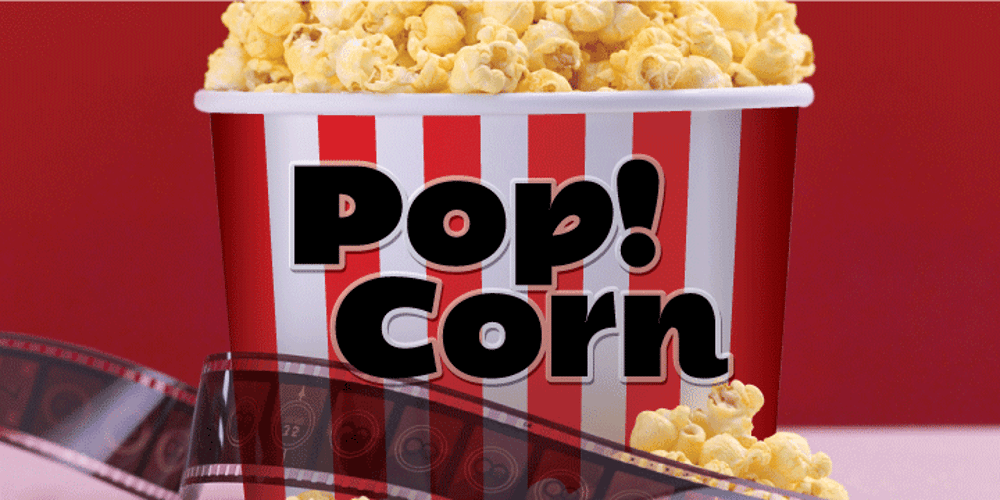
Titulata Font Family was designed by Eduardo Omar Rodríguez Tunni and published by Tipo. Titulata contains 1 styles and family package options. The design for Titulata was based on the need for a titles of extreme weight, dynamics and soft morphology. Strong and clear, it takes graceful form in the line and is legible even in small bodies. The script variable is softer and features some punch-line touches, providing another vision and incorporating traits of manual writing. One important feature is that both styles have the same rendering in text box, reason why signs can be combined without other alteration that the form of the printed word.